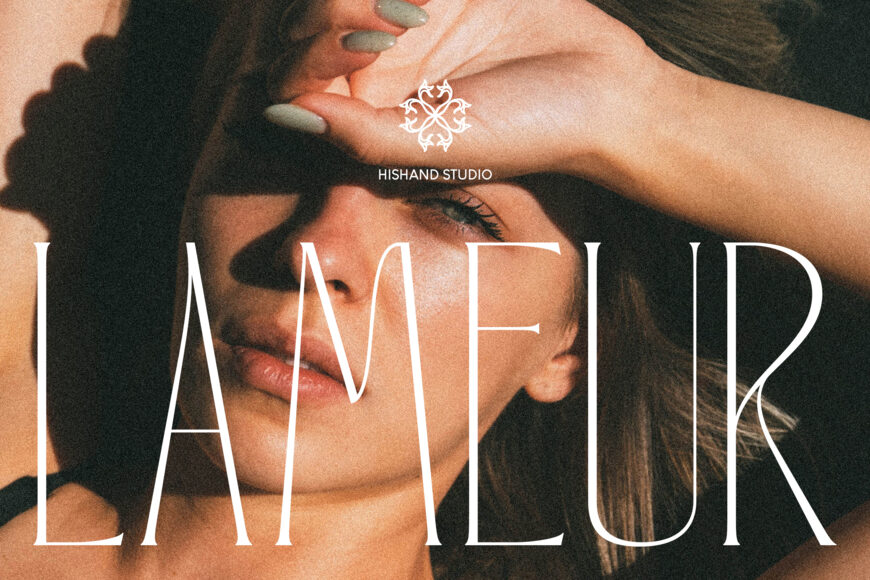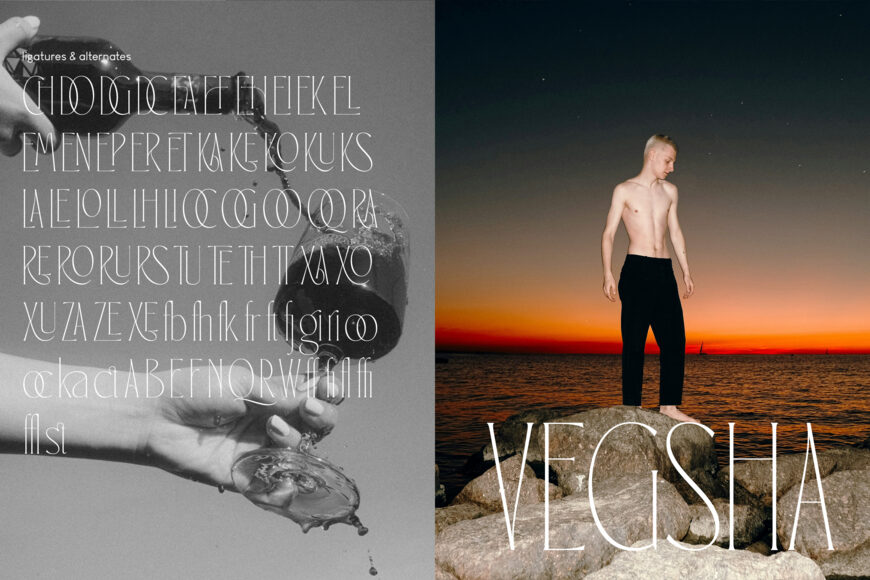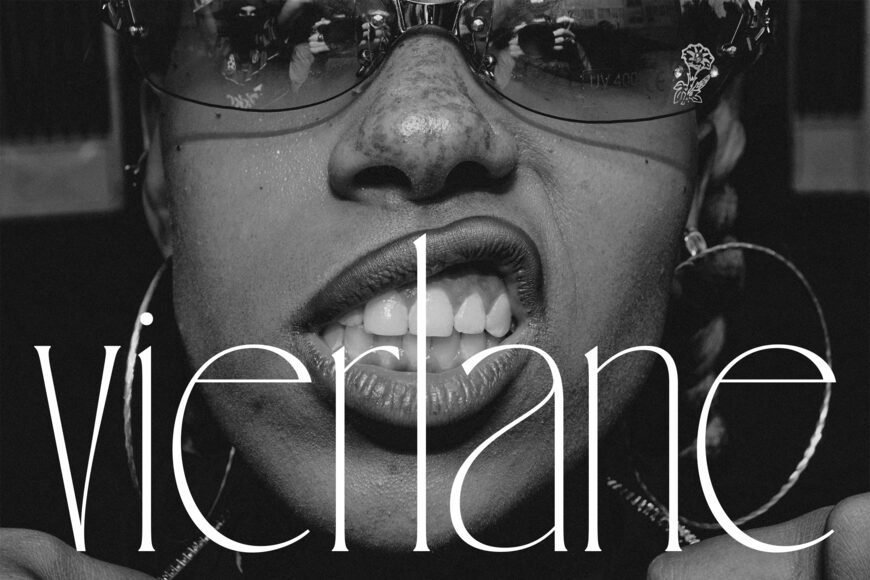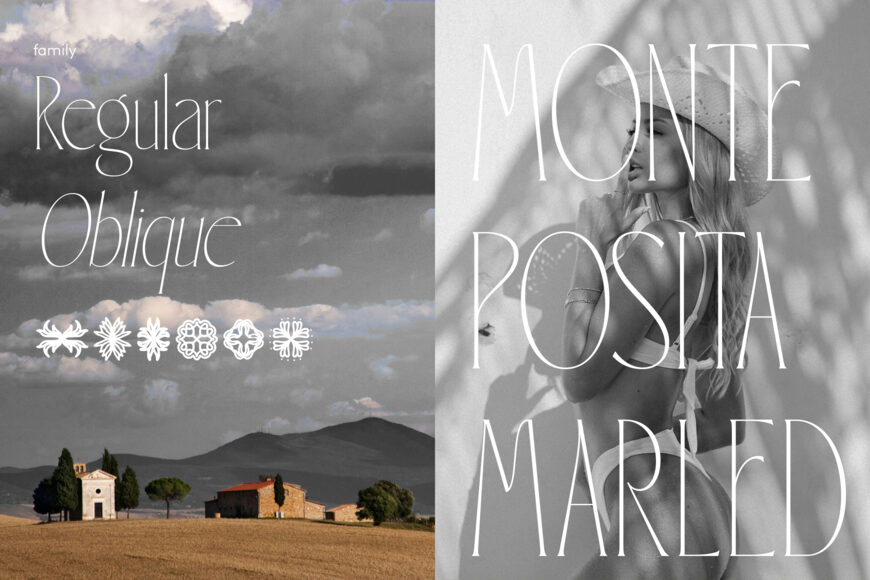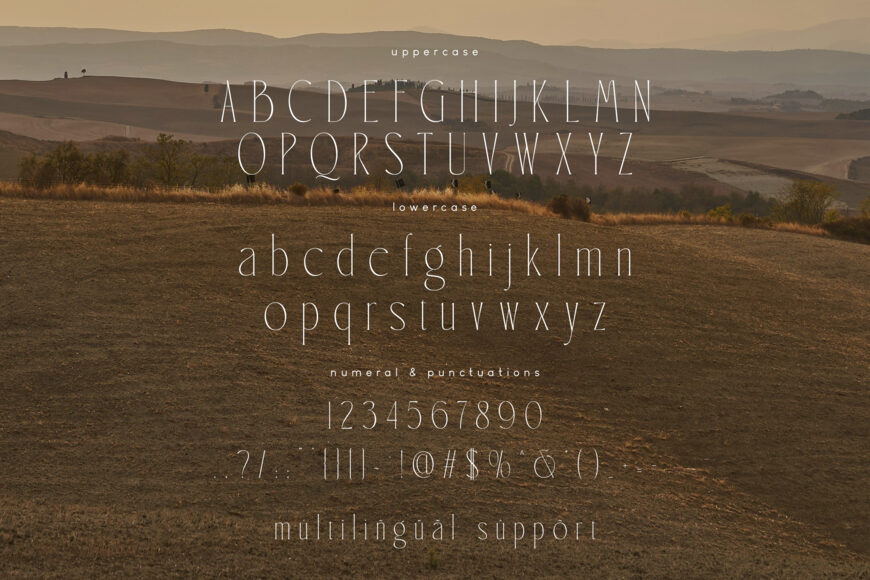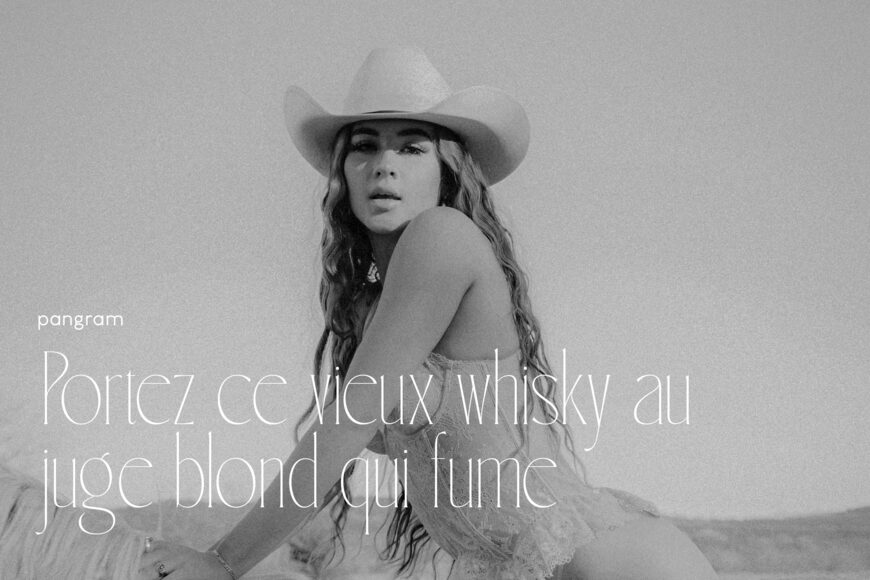
Lameur is an elegant, thin serif display typeface created for luxury and high-fashion branding. Its tall, slender letterforms, graceful proportions, and refined contrast create a quietly sophisticated, editorial look. Inspired by couture’s clean lines, it emphasizes precision, balance, and thoughtful negative space rather than ornament.
Ideal for logos, fashion identities, magazine headlines, wedding invitations, perfume packaging, boutique labels, jewelry, cosmetics, hotels, and hospitality, Lameur gives minimal designs a premium presence while remaining clear at display sizes. Its romantic, timeless character adds height and prestige, making every word feel intentional and memorable.